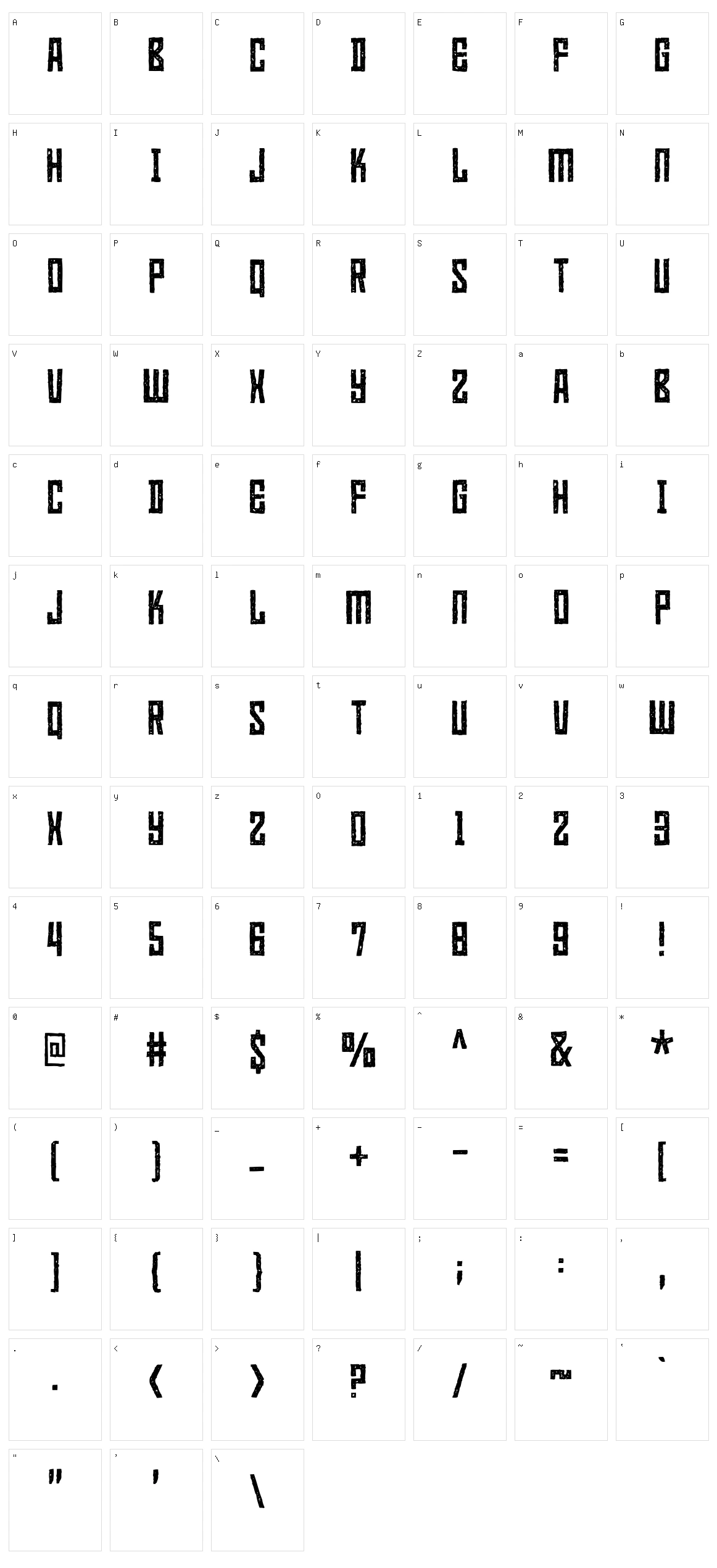
The free font Heatwert is carefully designed by Pizzadude, showcasing a thoughtful balance of creativity and usability and falls under the Eroded font style. When you download the ZIP file, it contains only 71.63 KB of font files, making it lightweight and quick to download. Please review the license details below to understand permitted usage and distribution rights. If license information is not available, we recommend using this font for personal projects only or contacting the author directly for commercial usage permissions.